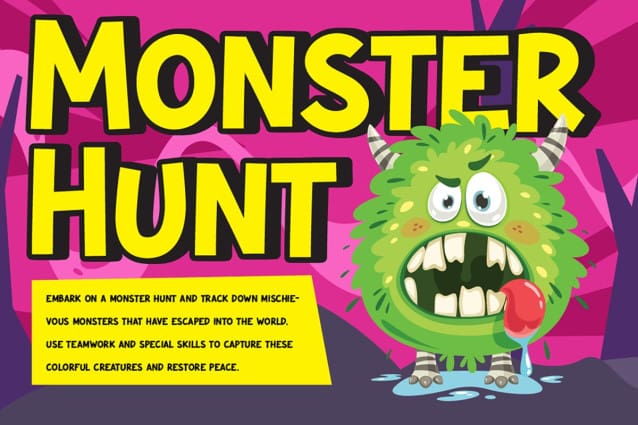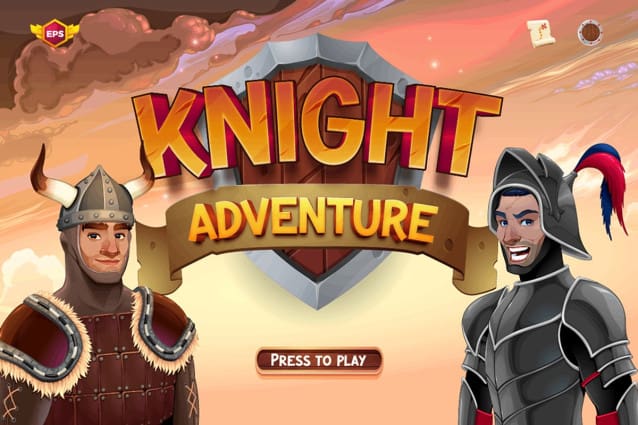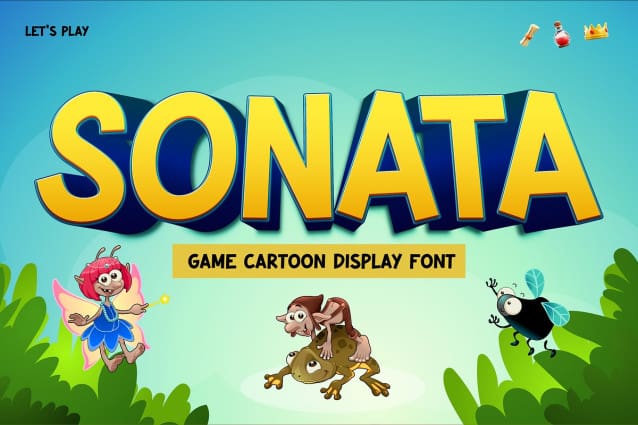
Sonata Display Font
SONATA DISPLAY FONT, the ultimate font designed to capture the playful essence of childhood and the thrilling excitement of gaming. With its vibrant and whimsical character set, SONATA brings a touch of fun to any project, making it perfect for children’s books, game interfaces, and vibrant branding materials. Its unique blend of rounded edges and dynamic letterforms ensures that your text will stand out and engage your audience, drawing them into a world where imagination knows no bounds.
SONATA DISPLAY FONT isn’t just a font; it’s an experience. Crafted with attention to detail, this typeface offers a perfect balance between readability and playful flair. Whether you’re creating an adventurous game title, a lively educational app, or eye-catching promotional material, SONATA’s energetic style will infuse your designs with a sense of joy and excitement. Elevate your projects with SONATA and watch as it transforms ordinary text into a captivating visual journey.